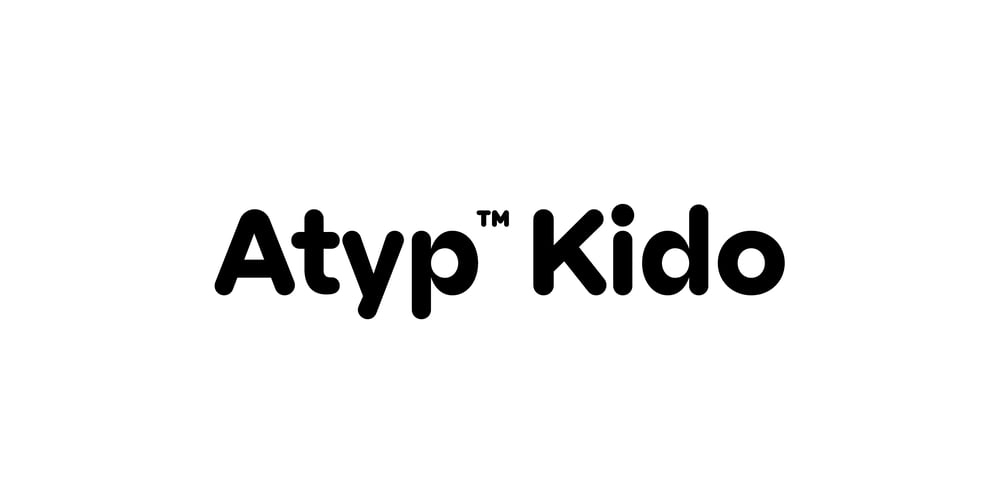
Atyp Kido Font Family was designed by Tomáš Brousil and published by Suitcase Type Foundry. Atyp Kido contains 7 styles and family package options. Atyp Kido with softened stem ends is a great alternative if you are creating branding or logotype with a feeling of warmth, love and playfulness. Atyp Kido comes in six weights with a rich language palette of expanded Latin, Cyrillic and Greek. The available variable format is a clear benefit for creating quality responsive design.